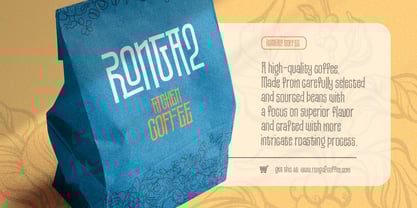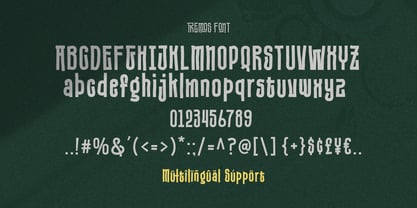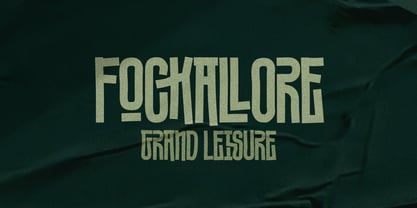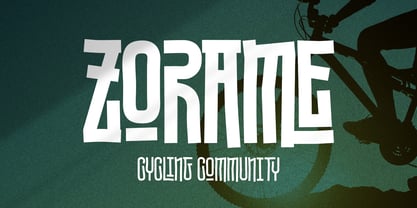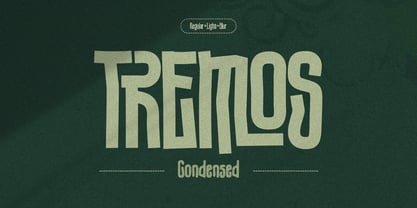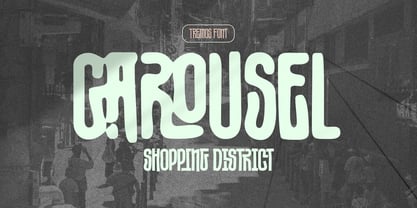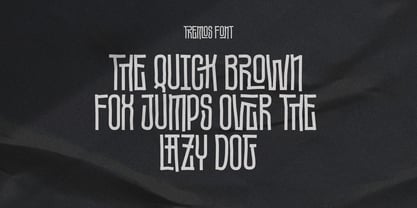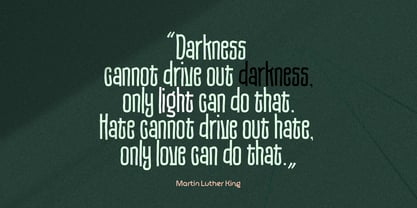
Tremos
The Tremos Font Family was designed by Jarnawi Saja and published by Grontype. Tremos contains 3 styles and family package options.
Tremos is a unique and modern decorative display typeface, crafted to bring bold character and striking style to any design. Featuring distinctive ligatures, it offers a creative edge that stands out in headlines, branding, or logotypes. The font comes in three versatile styles—Light, Regular, and Blur—allowing you to adapt its personality to various design needs. Whether for editorial headlines or memorable brand identities, Tremos delivers a perfect balance of style and impact.
Features:
• Unique Decorative Font
• Awesome Ligatures
• Basic Latin Glyphs
• Numeral and Punctuation
• Currencies
• Multilingual Support